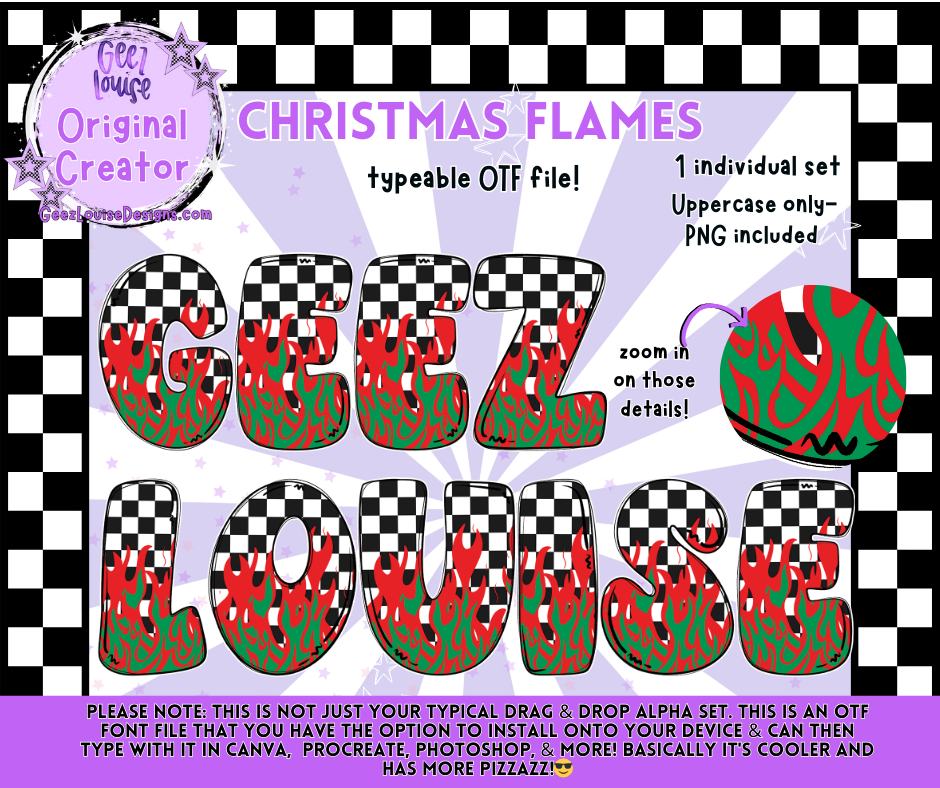
Christmas Flames Alpha | OTF Font + PNG Set | Geez Louise Original
Turn up the heat this holiday season with the Christmas Flames Alpha! 🔥🎄 This bold digital alpha brings together festive Christmas colors with edgy flame details—perfect for designs that need a little holiday spirit with attitude.
✨ Not your typical alpha—this one has texture, style, and pizzazz that’s ready to stand out in your holiday lineup.